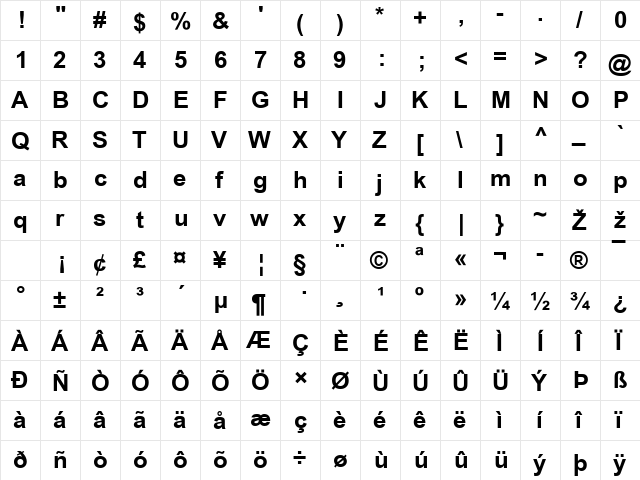
EE Arial Bold
Design Context for EE Arial Typeface
EE Arial offers clean, dependable letterforms without strong stylistic allegiance, making it a practical choice for designers who need flexibility. The heavy weight commands attention and anchors typographic hierarchies.